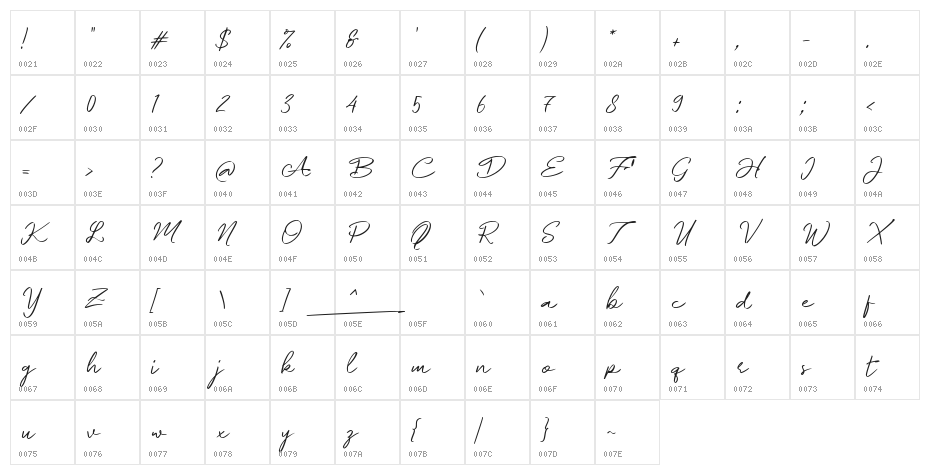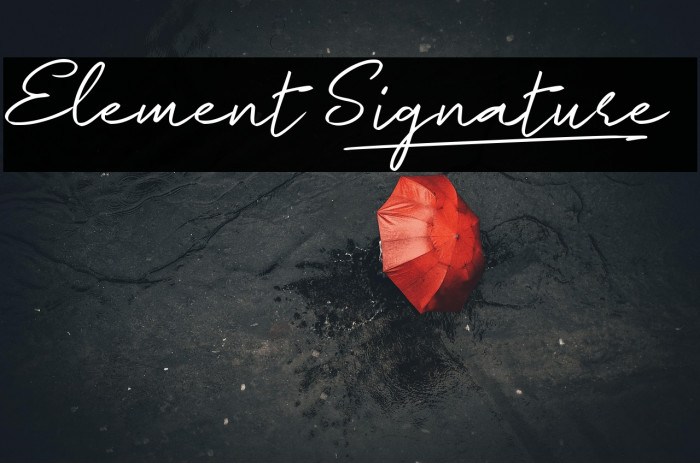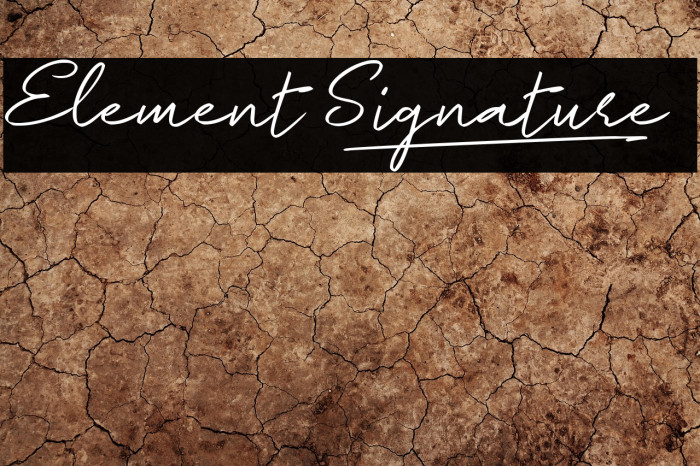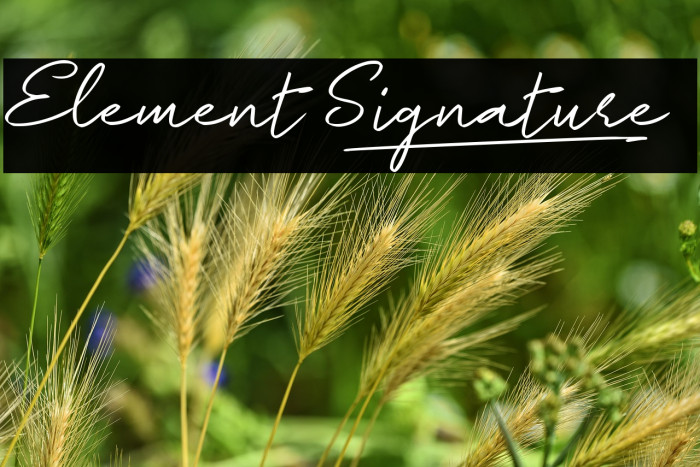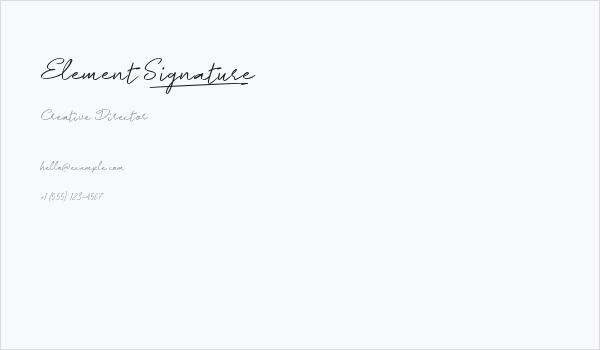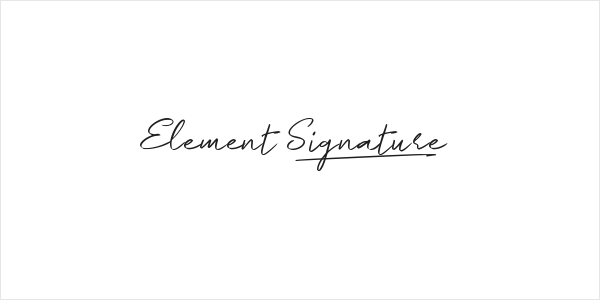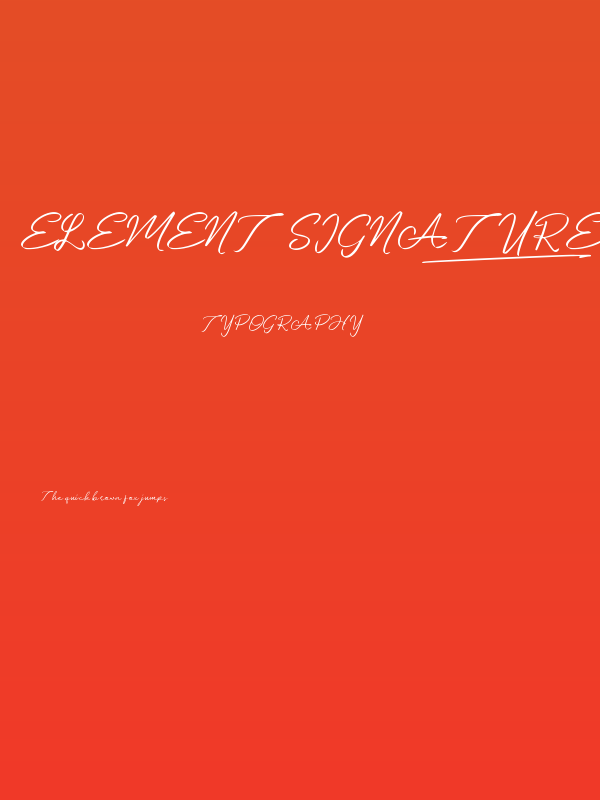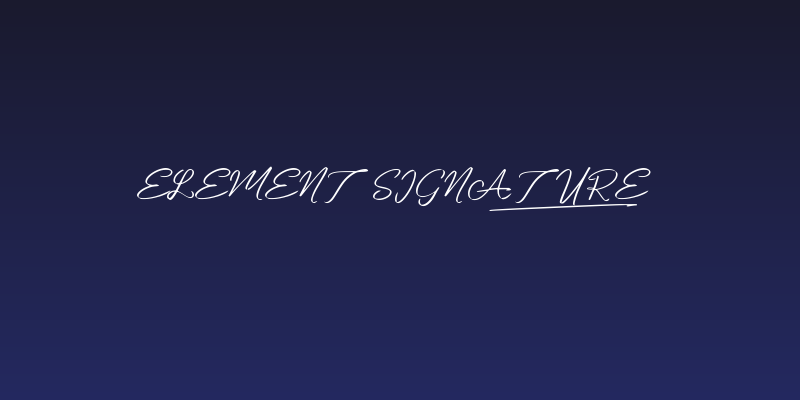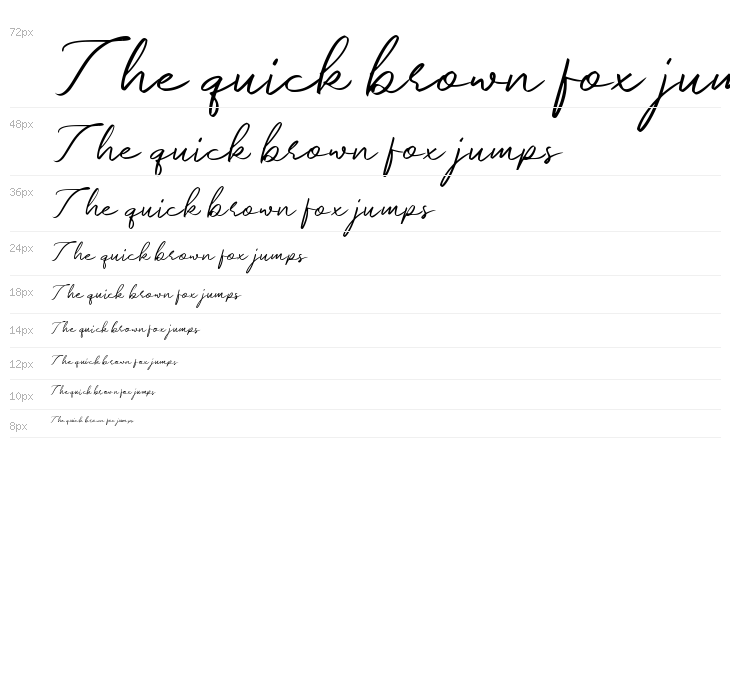
Element Signature_ Font
Element Signature_ Description
This font exudes elegance and fluidity, characterized by its cursive, handwritten style. The letters are connected seamlessly, creating a natural flow that mimics the strokes of a calligraphy pen. The uppercase letters are slightly more ornate, with graceful loops and curves, while the lowercase letters maintain a consistent, smooth appearance. The numerals and special characters are crafted with the same attention to detail, ensuring a cohesive look across all elements. The overall design is sophisticated, making it suitable for projects that require a personal touch.